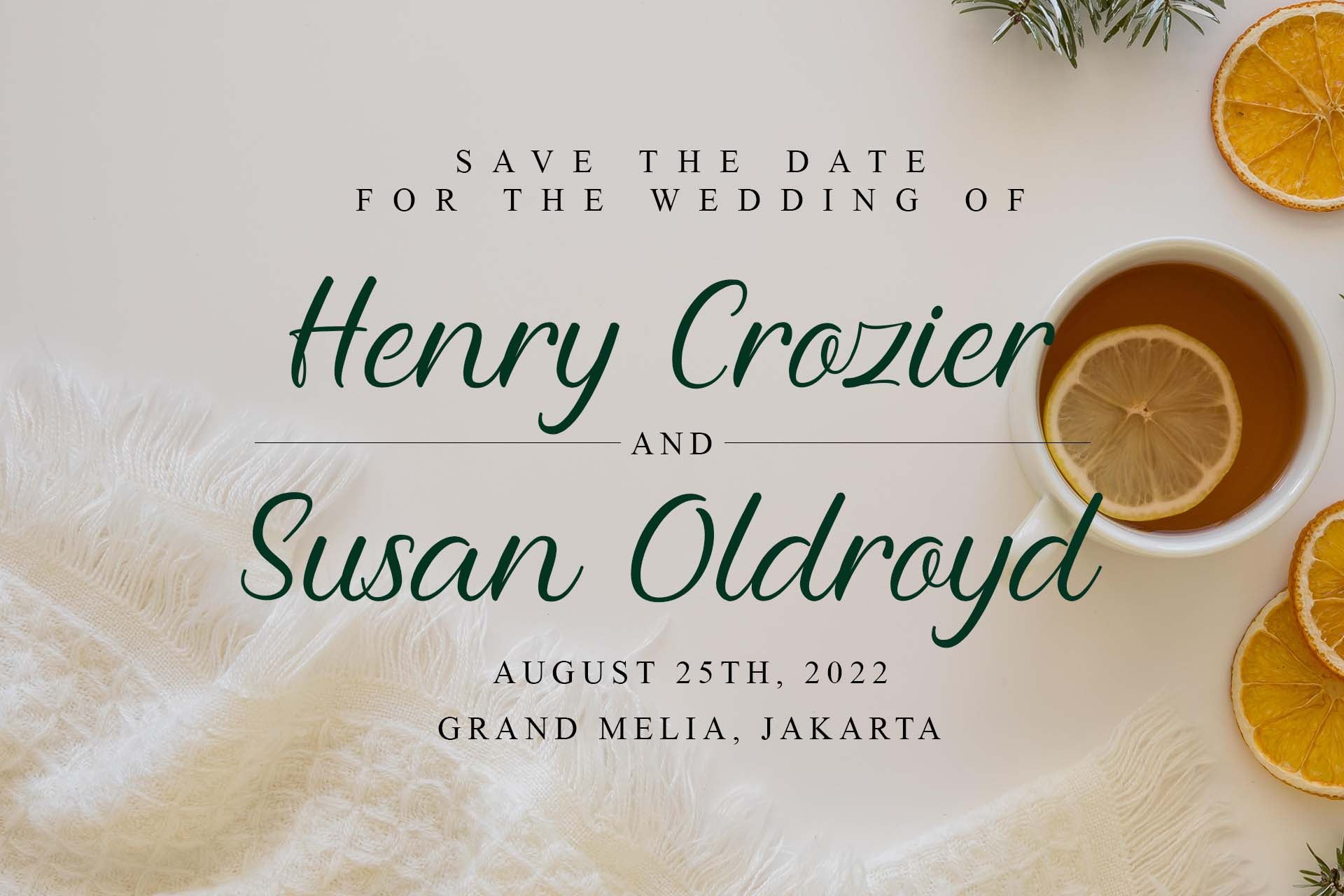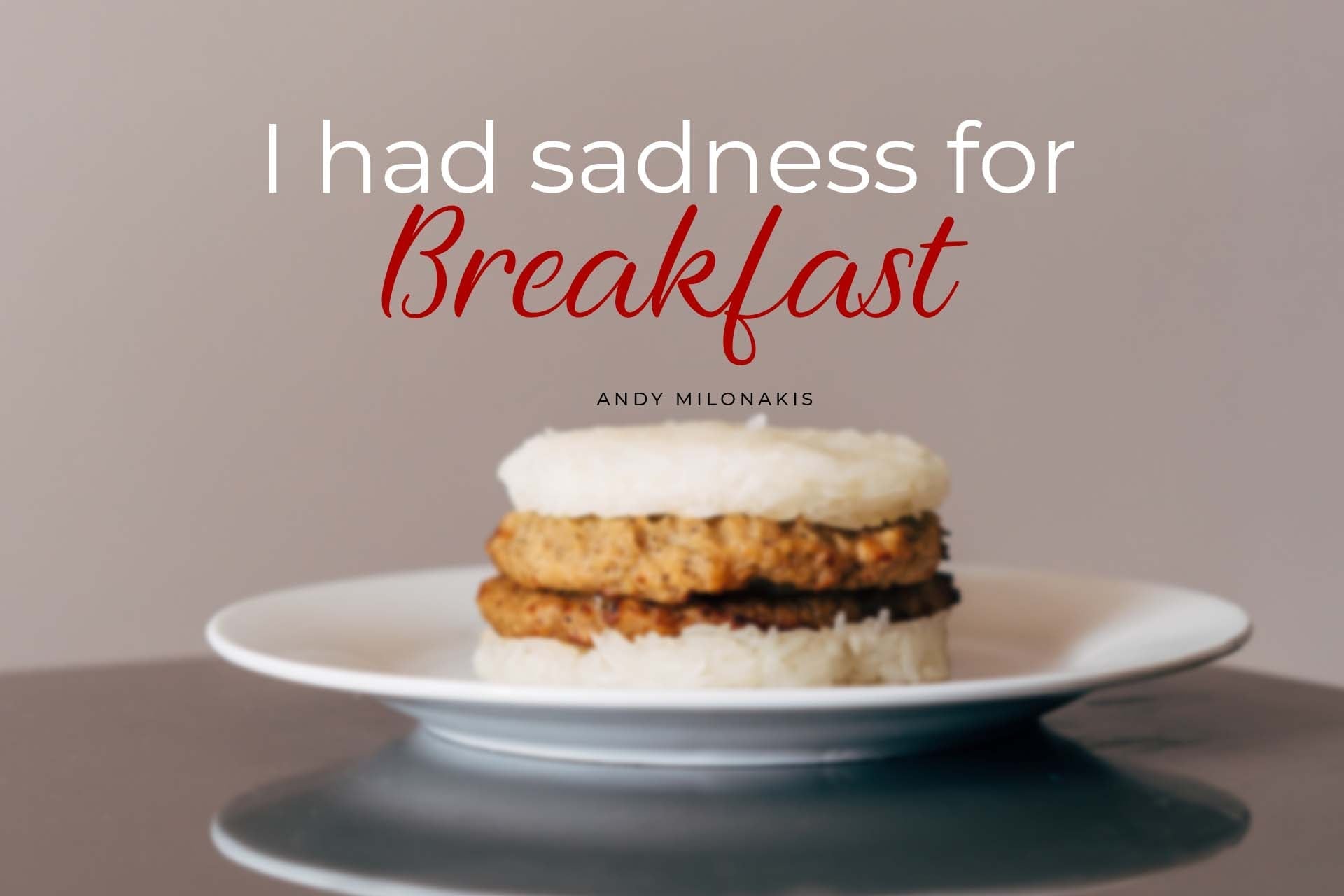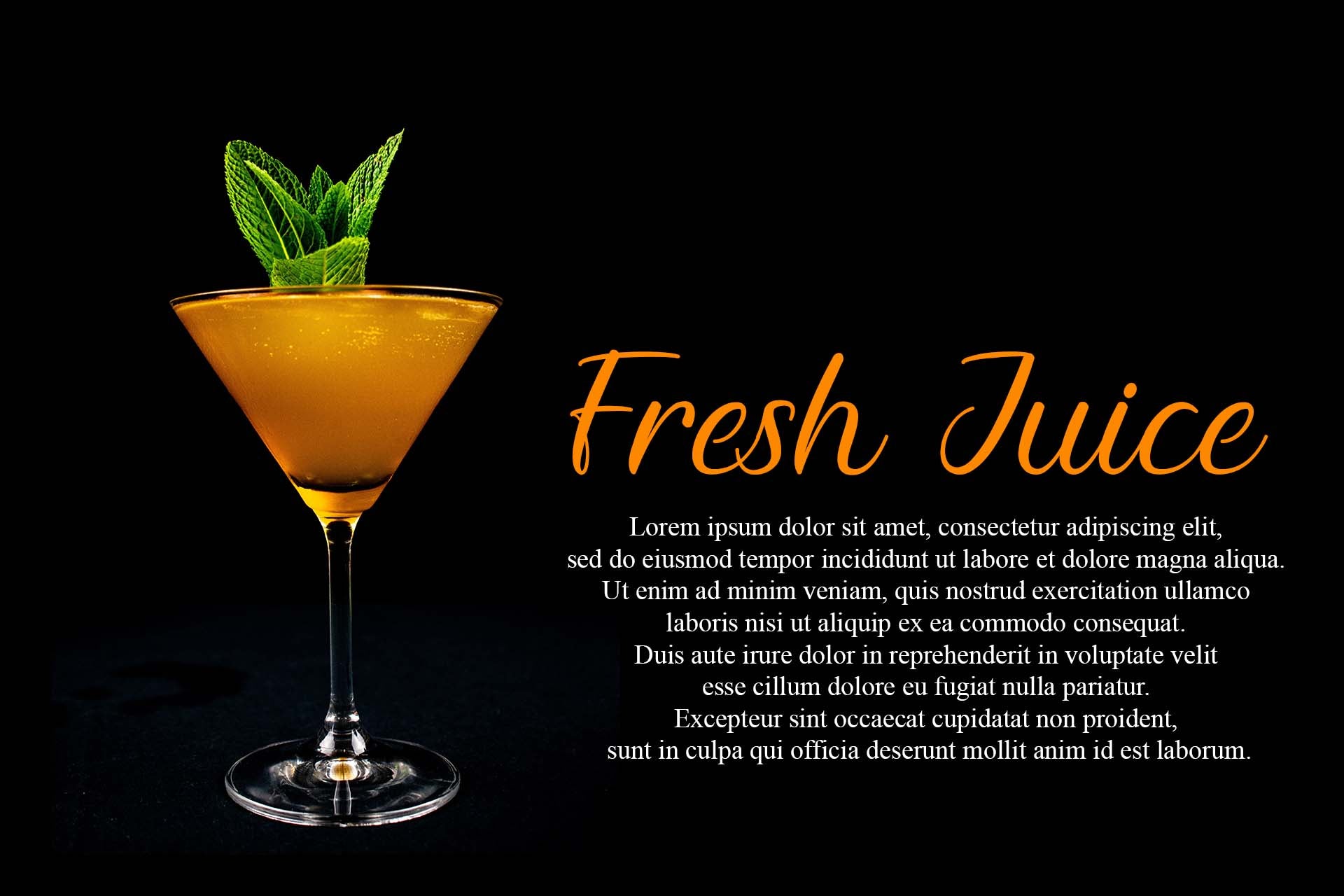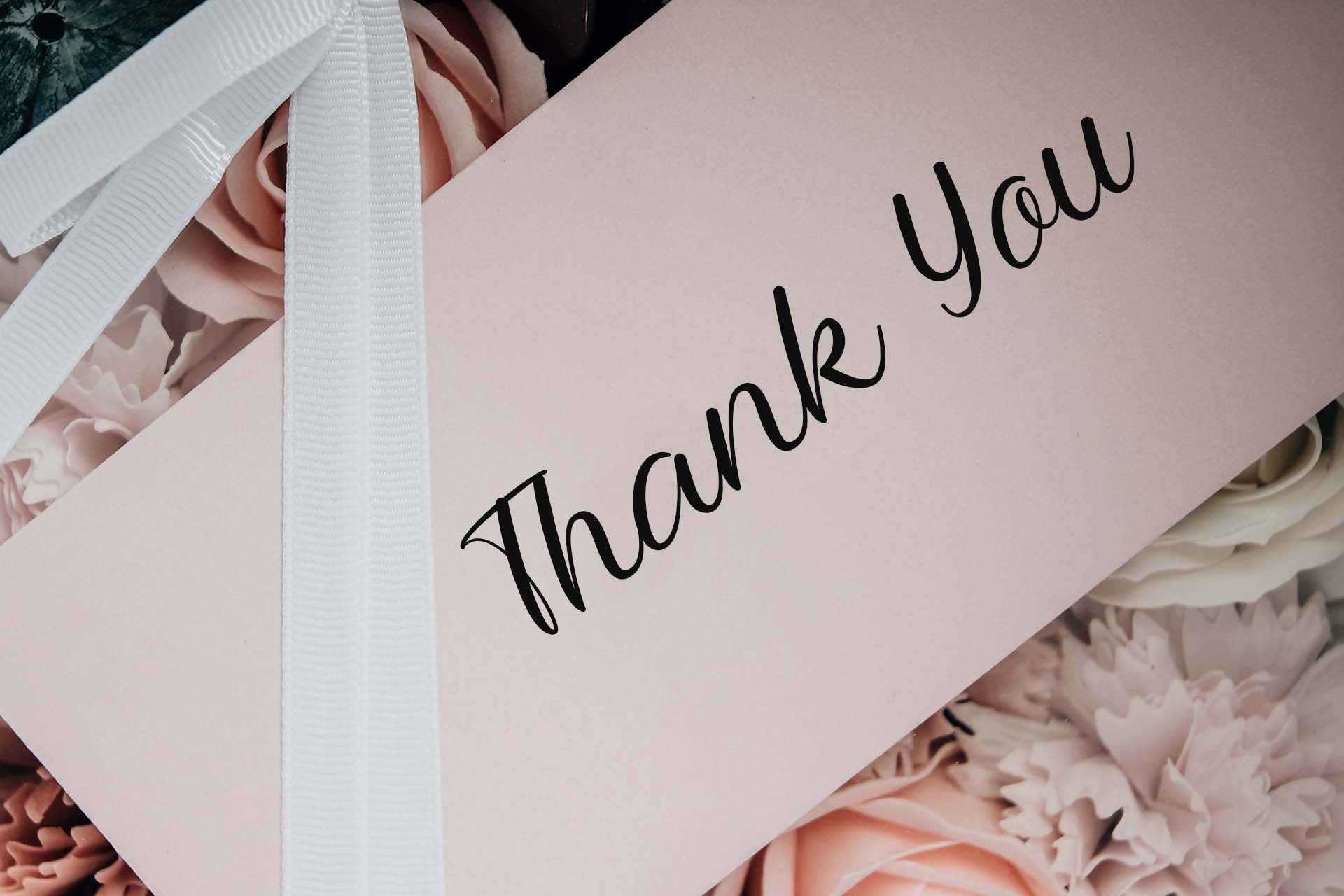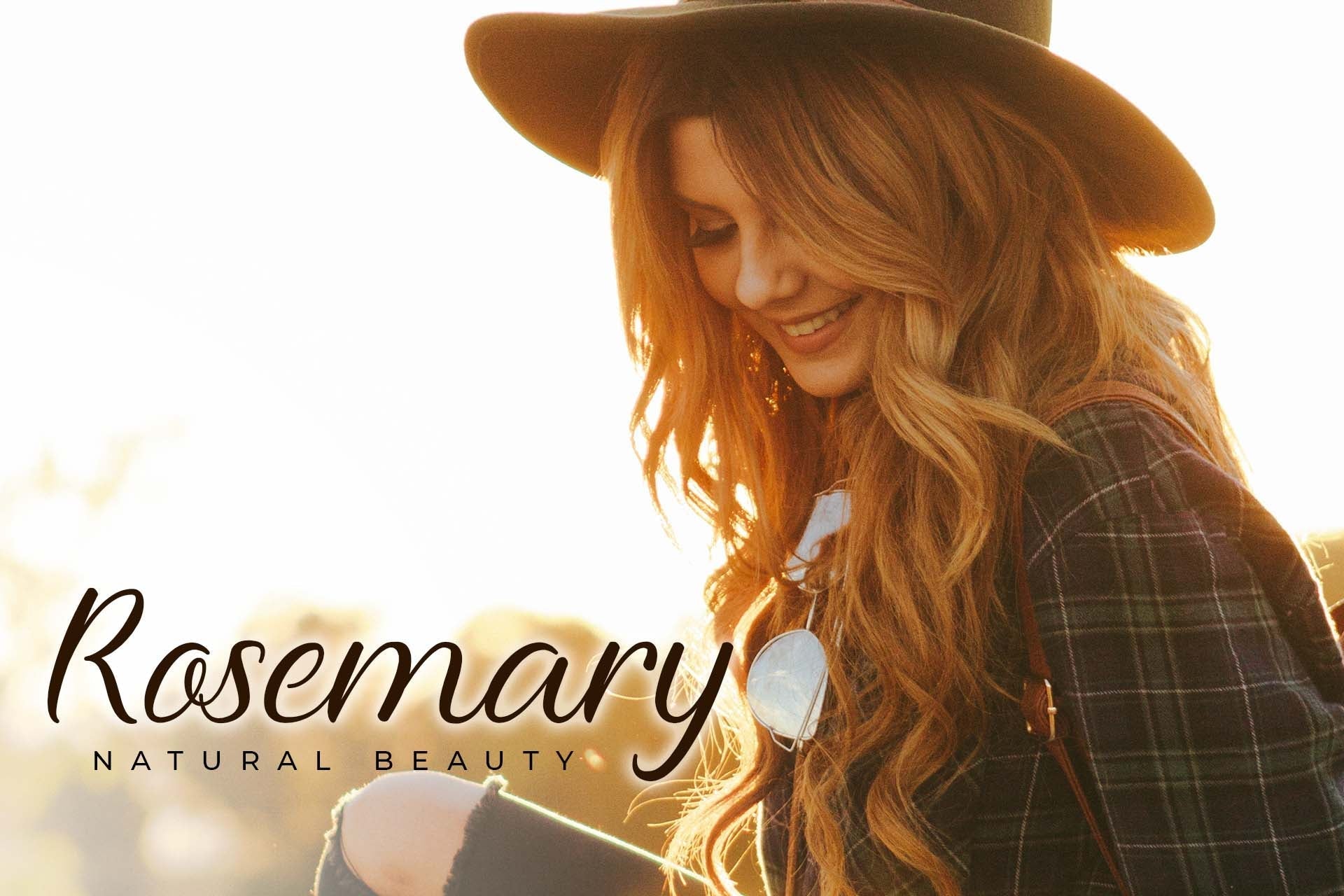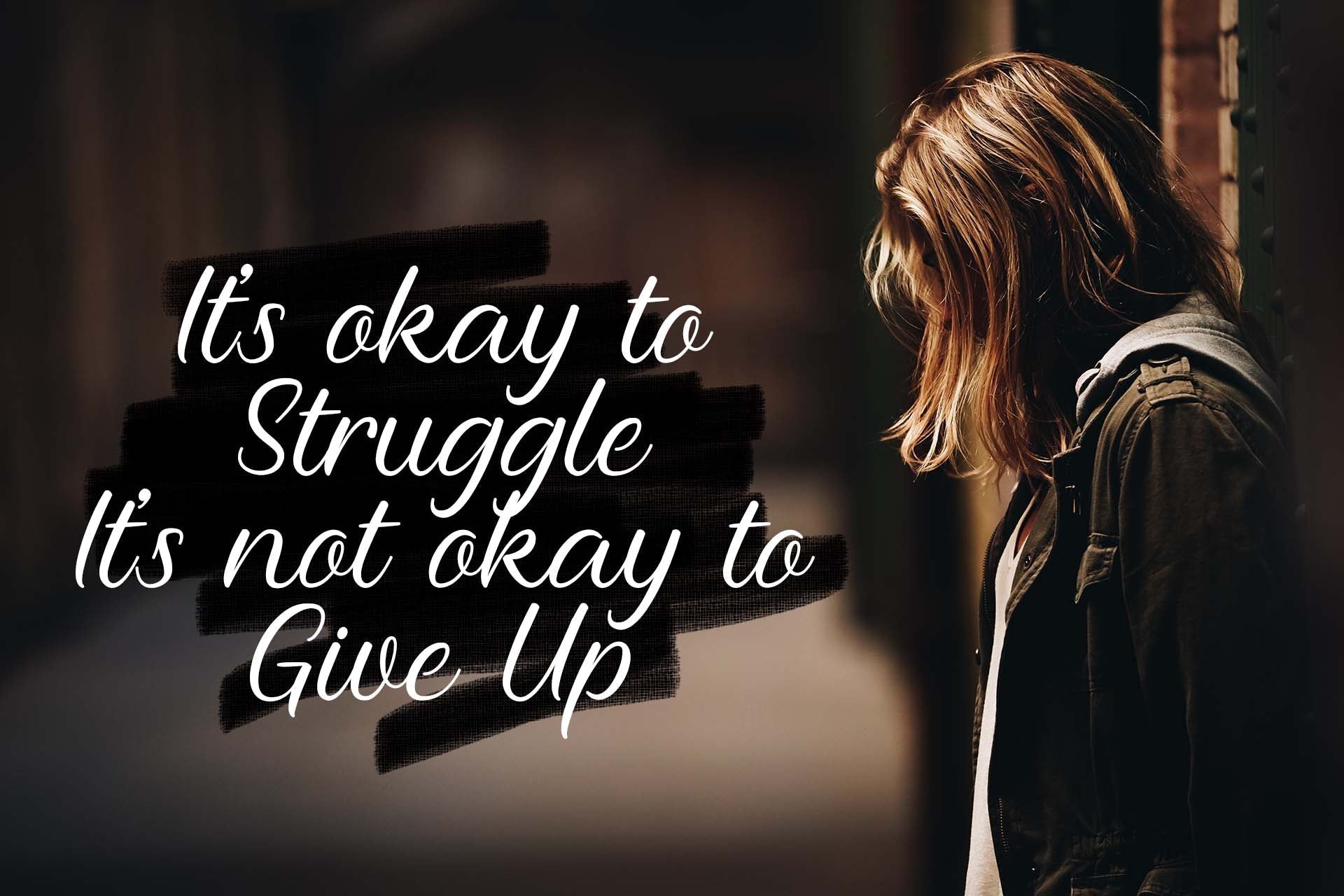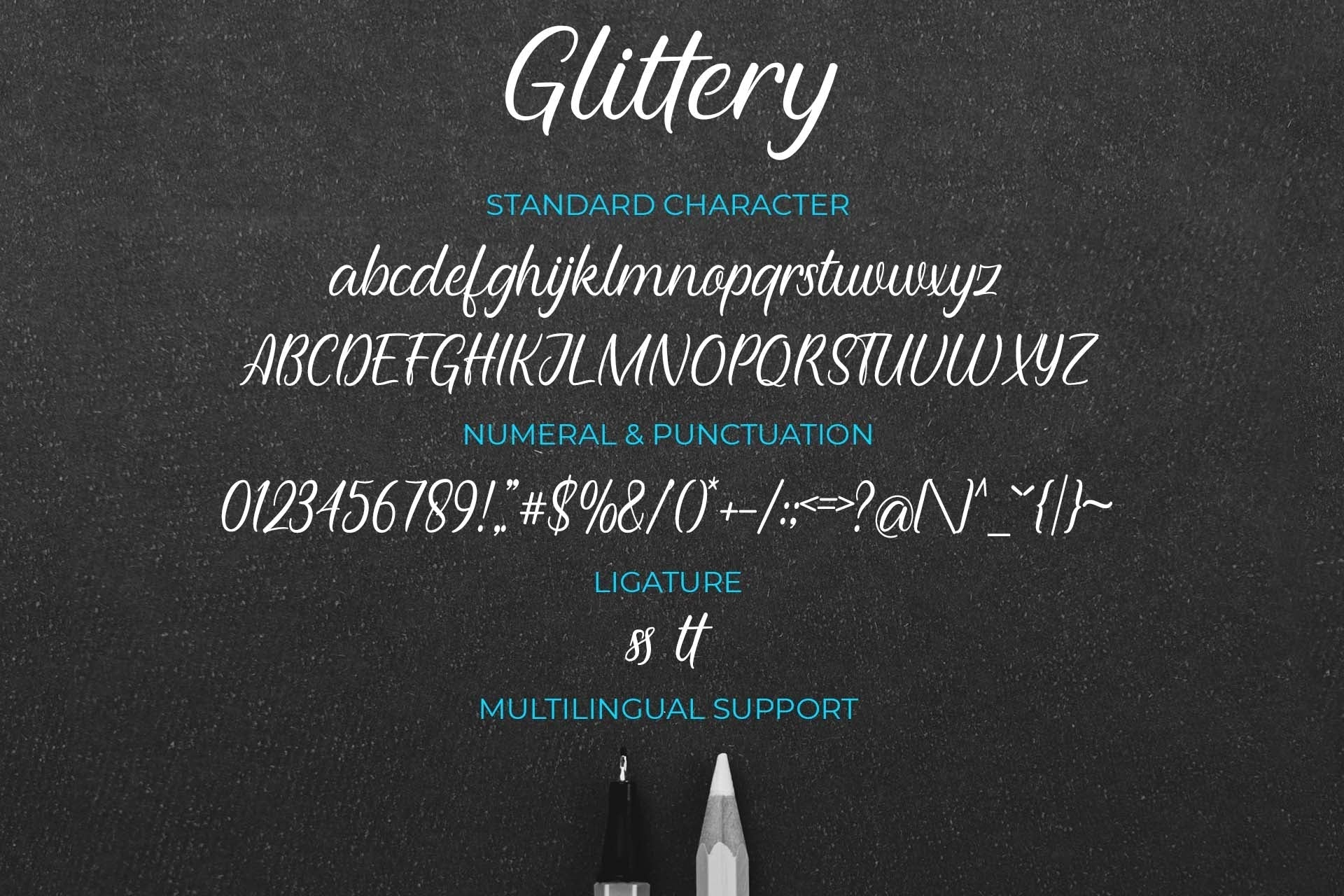
Glittery is a lovely and timeless handwritten font. It is the best choice for creating eye catching logos, branding and quotes. Glittery is PUA encoded which means you can access all of the glyphs and swashes with ease!